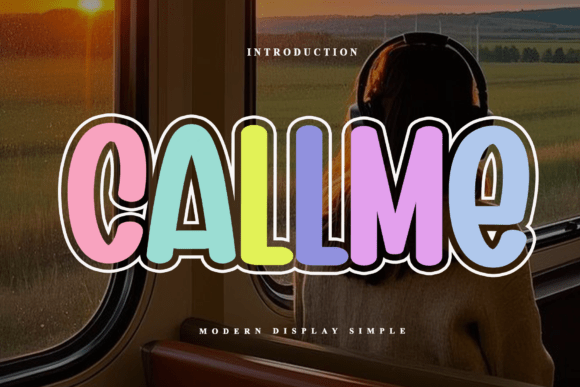
The Ultimate Design Game-Changer: Callme Font
Have you ever been in the middle of a design project, and suddenly, you’re stuck on finding the perfect font? I certainly have! It was a typical Wednesday afternoon when I was working on a vibrant poster for a local adventure club. The theme was bold, energetic, and playful – but my font choices were, well, lacking that oomph. That’s when I stumbled upon the **Callme Font**. With its chunky, expressive letterforms and slightly uneven, organic edge, it instantly brought my design to life!
First Impressions: A Bold and Energetic Handwritten Display Font
The Callme Font is a bold and energetic handwritten display font designed to make your message impossible to ignore. Its hand-crafted style mimics the look of marker lettering, making it perfect for designs that need a confident, playful punch. Whether you’re working on posters, t-shirts, adventure-themed graphics, children’s books, branding, packaging, or social media visuals, this font is sure to deliver a unique look that stands out with personality and flair.
- ✨ Unique and eye-catching design: The Callme Font is truly one-of-a-kind, making it perfect for designers who want to add a personal touch to their work.
- ✅ Highly versatile: This font can be used for a wide range of projects, from posters and t-shirts to social media graphics and branding.
- 💥 Instantly conveys energy and playfulness: The Callme Font is perfect for designs that need a bold and energetic vibe.
- 🤔 Limited use for body text: Due to its bold and chunky design, the Callme Font may not be the best choice for body text or long paragraphs.
- ⚠️ May not be suitable for formal designs: The Callme Font is perfect for playful and creative designs, but it may not be the best fit for formal or professional projects.
The Callme Font was inspired by the playful and spontaneous world of street art and graffiti. Its designer wanted to create a font that would capture the energy and creativity of marker lettering, while also being easy to read and use. The result is a font that’s perfect for designers who want to add a bold and playful touch to their work.
Q: What type of projects is the Callme Font best suited for?
A: The Callme Font is perfect for designs that need a bold and energetic vibe, such as posters, t-shirts, adventure-themed graphics, children’s books, branding, packaging, and social media visuals.
Q: Can I use the Callme Font for body text?
A: While the Callme Font is highly legible, its bold and chunky design may not be the best choice for body text or long paragraphs.